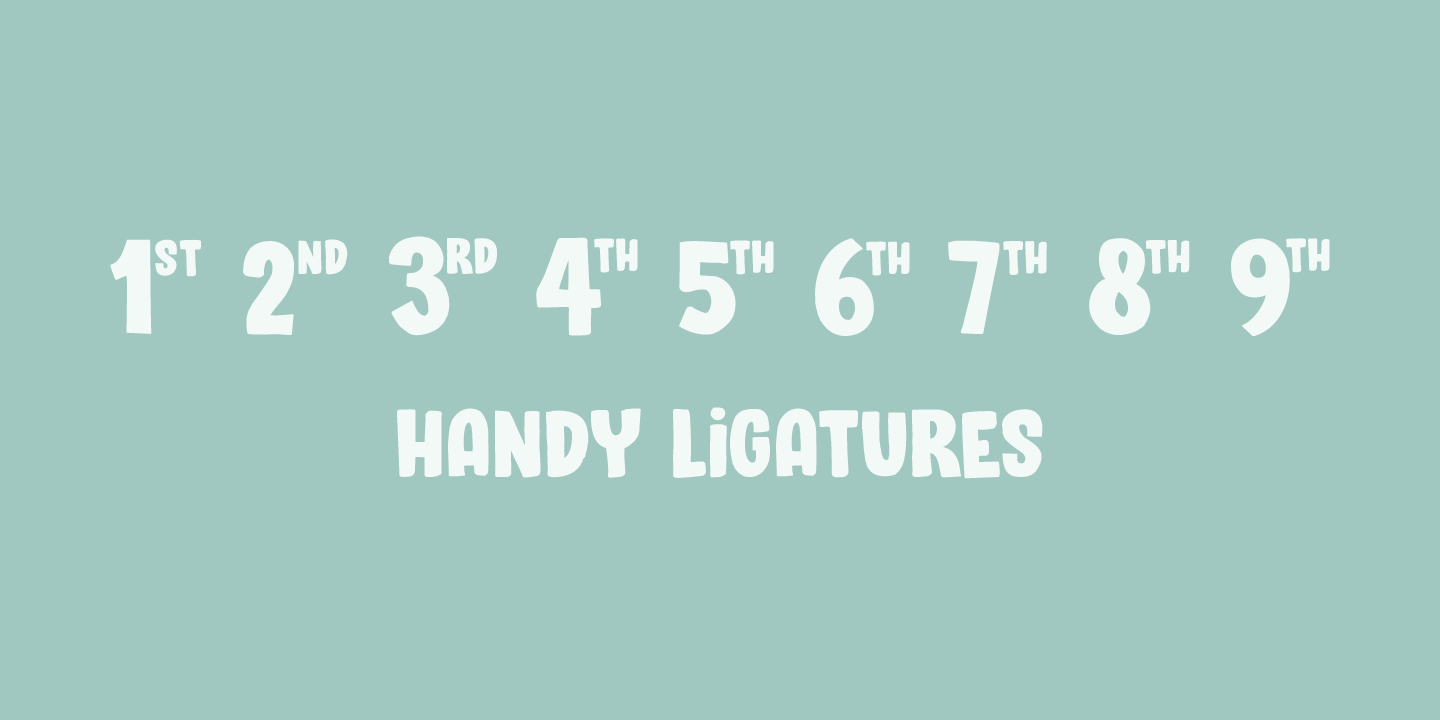
Bloomer Font Free Download
Bloomer Font is perfect for flower shop branding, garden center signage, botanical wedding invitations, spring festival posters, floral design studios, gardening magazine layouts, nursery business cards, flower delivery services, landscape architecture materials, and blooming seasonal campaigns.
What makes Bloomer Font exciting is its flourishing beauty and vibrant growth energy that captures the magical moment when flowers burst into full bloom with radiant life and natural splendor. This delightful typeface embodies the essence of botanical awakening with its graceful curves and blossoming character forms that seem to unfold like petals greeting the morning sun. The font's blooming personality creates an immediate sense of renewal, growth, and the joyful celebration of nature's most beautiful expressions.
Bloomer Font family includes regular weight with florally inspired character designs featuring petal-like curves and garden-fresh proportions. The typeface maintains excellent readability while showcasing its distinctive botanical personality through carefully cultivated letterforms that seem to grow and flourish with the natural rhythm of blooming flowers in springtime gardens.
Floral professionals consistently select Bloomer Font Free Download for projects requiring authentic botanical appeal and flowering elegance. This remarkable typeface brings the beauty of blooming gardens to brand communications, combining natural grace with seasonal freshness to create memorable experiences that celebrate life's most colorful moments. The thoughtfully designed characters ensure blooming visual impact across all applications, making it essential for florists, garden centers, and any organization seeking to communicate the transformative power of growth and the endless beauty that comes from nurturing life's most precious blooms through Bloomer Font Free Download.